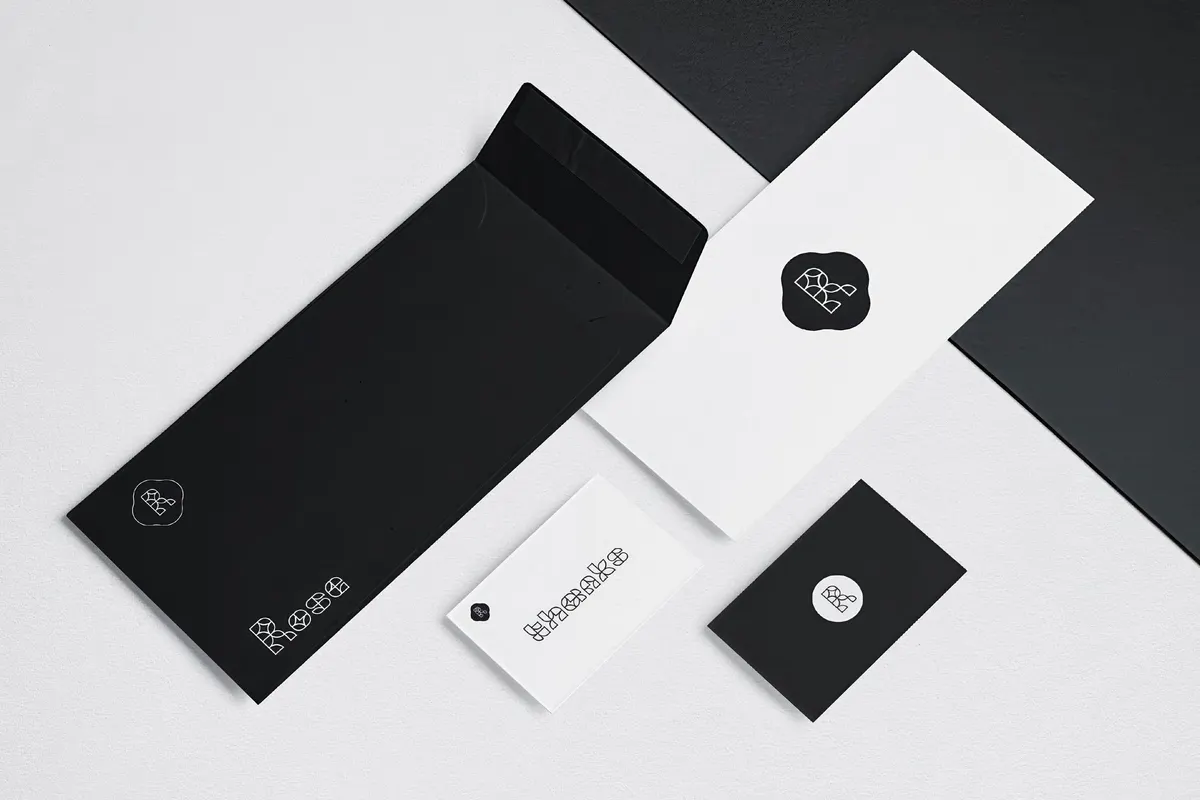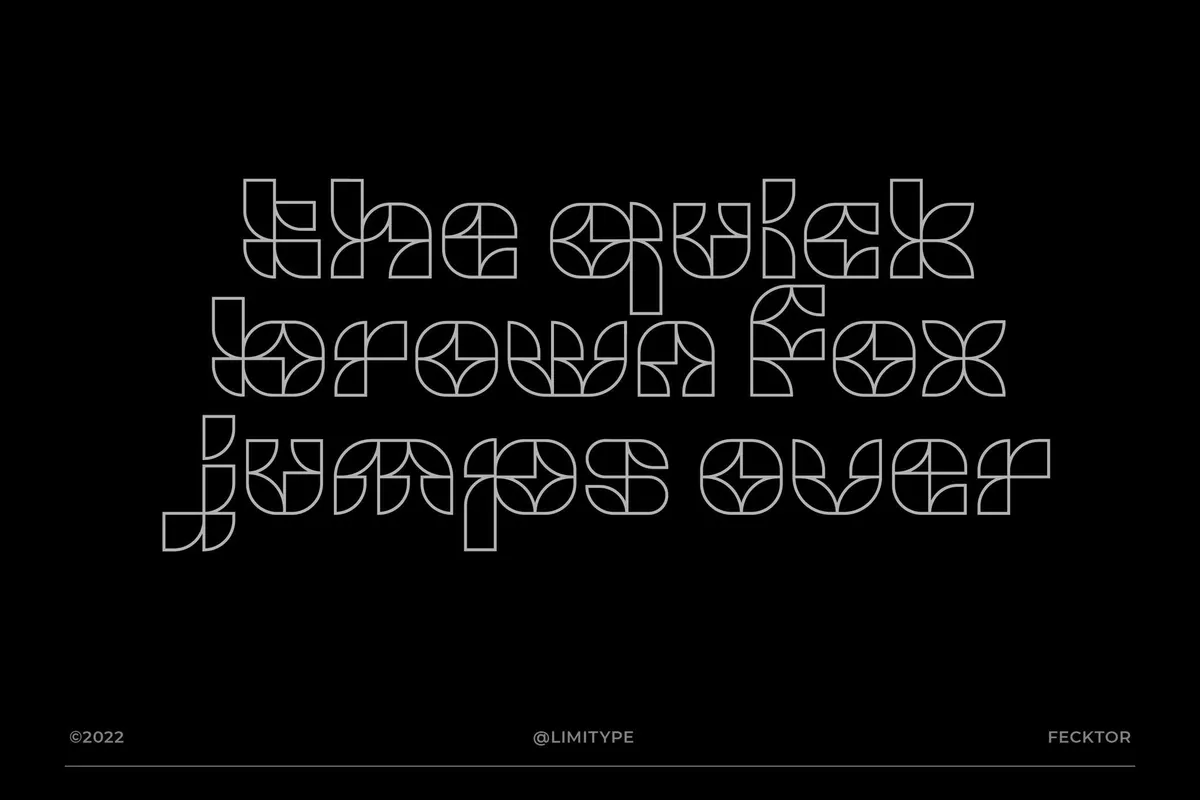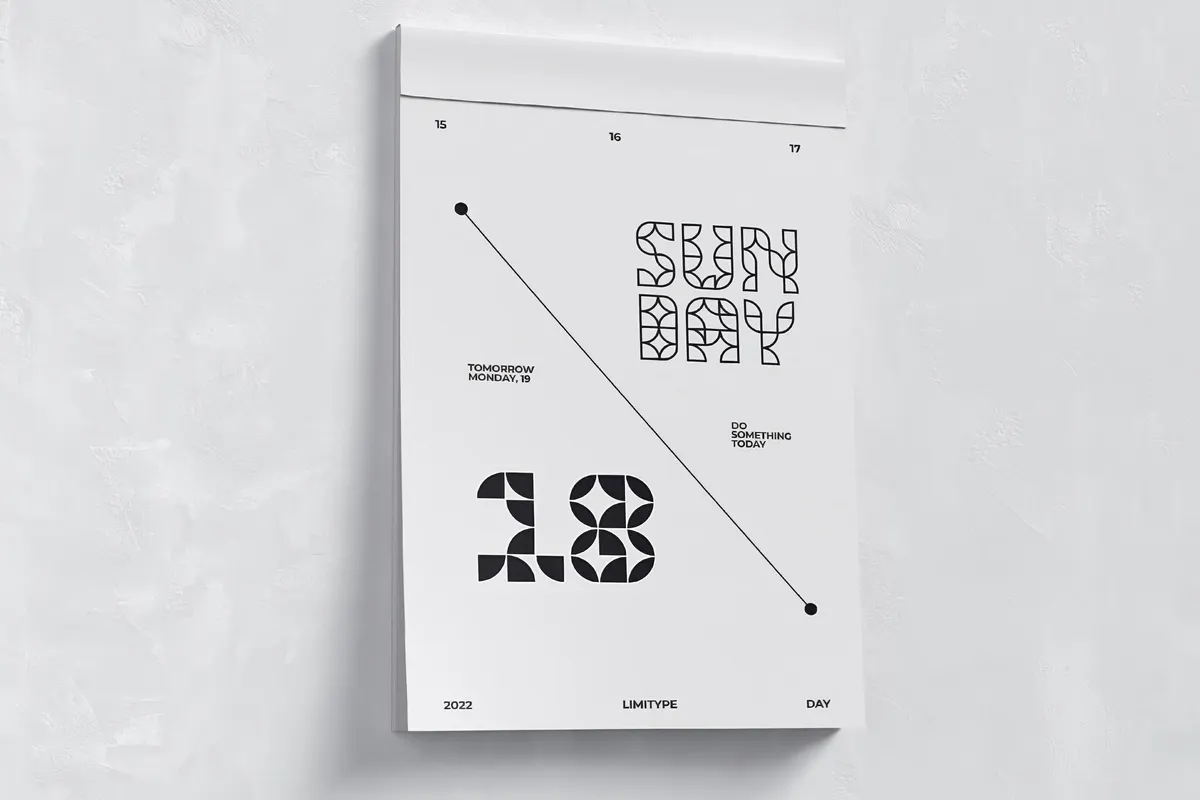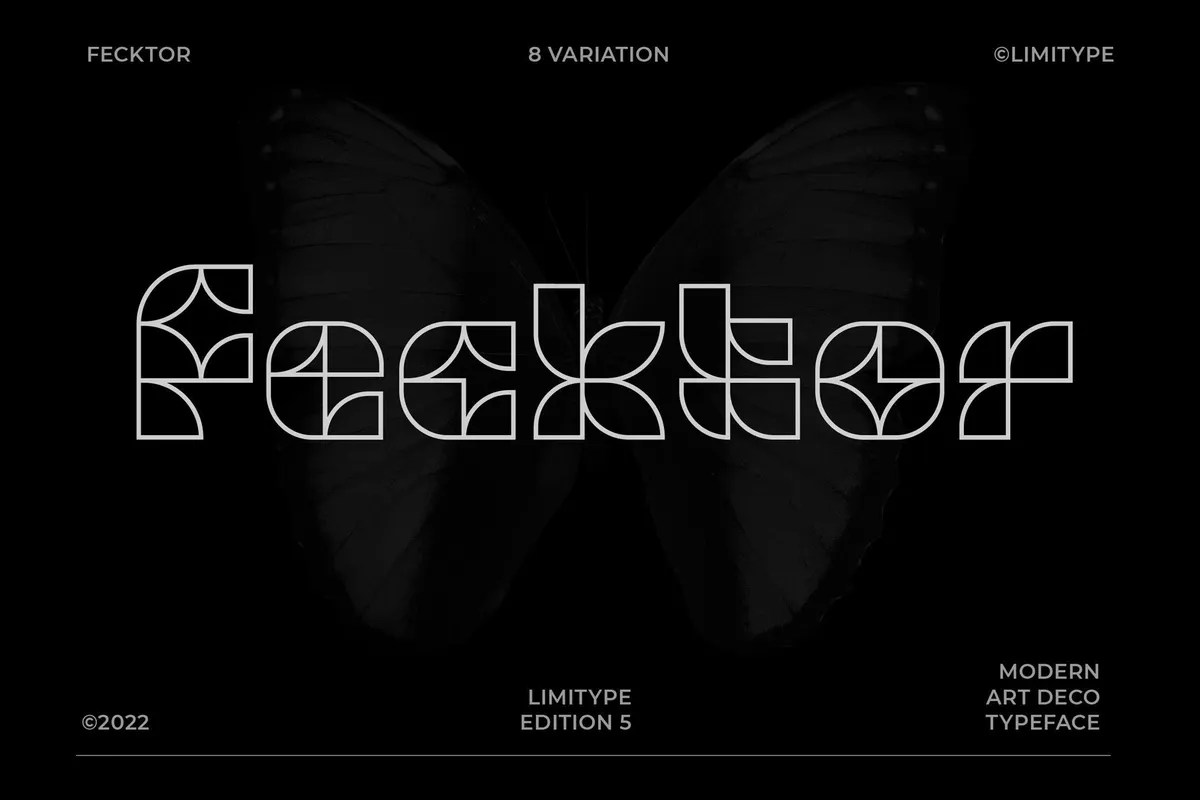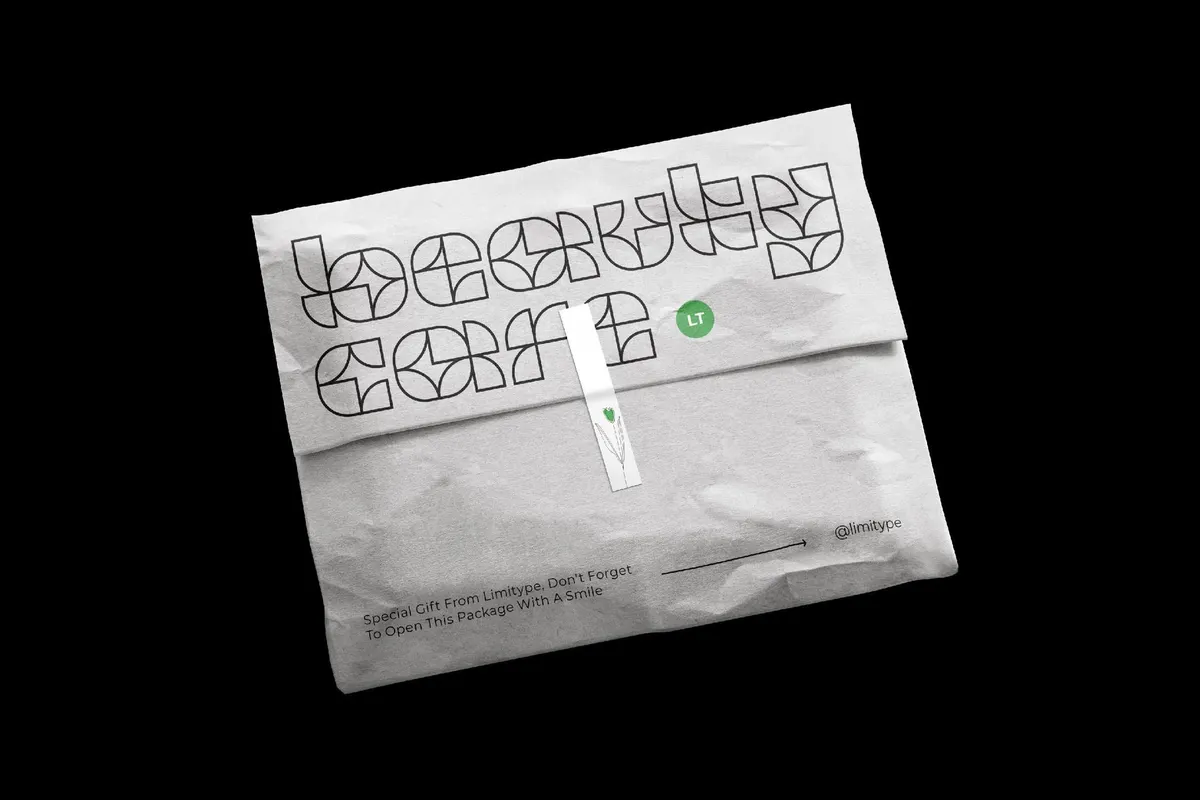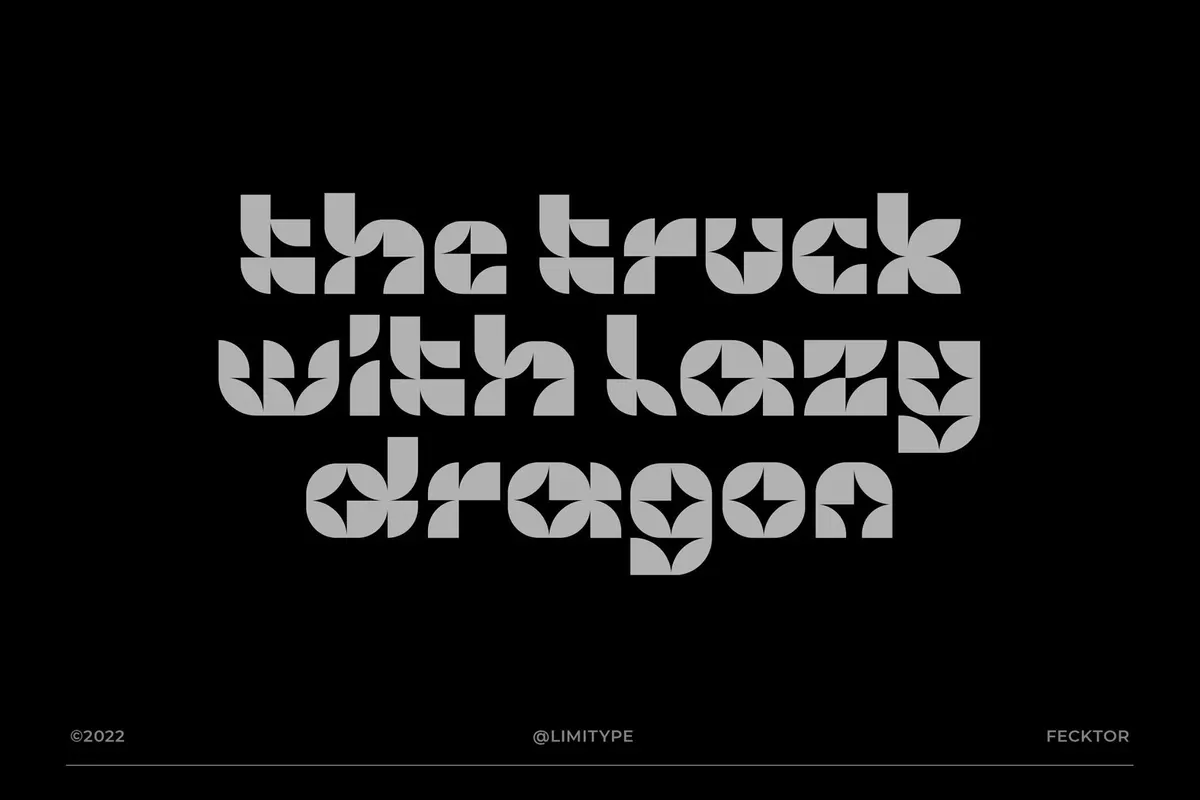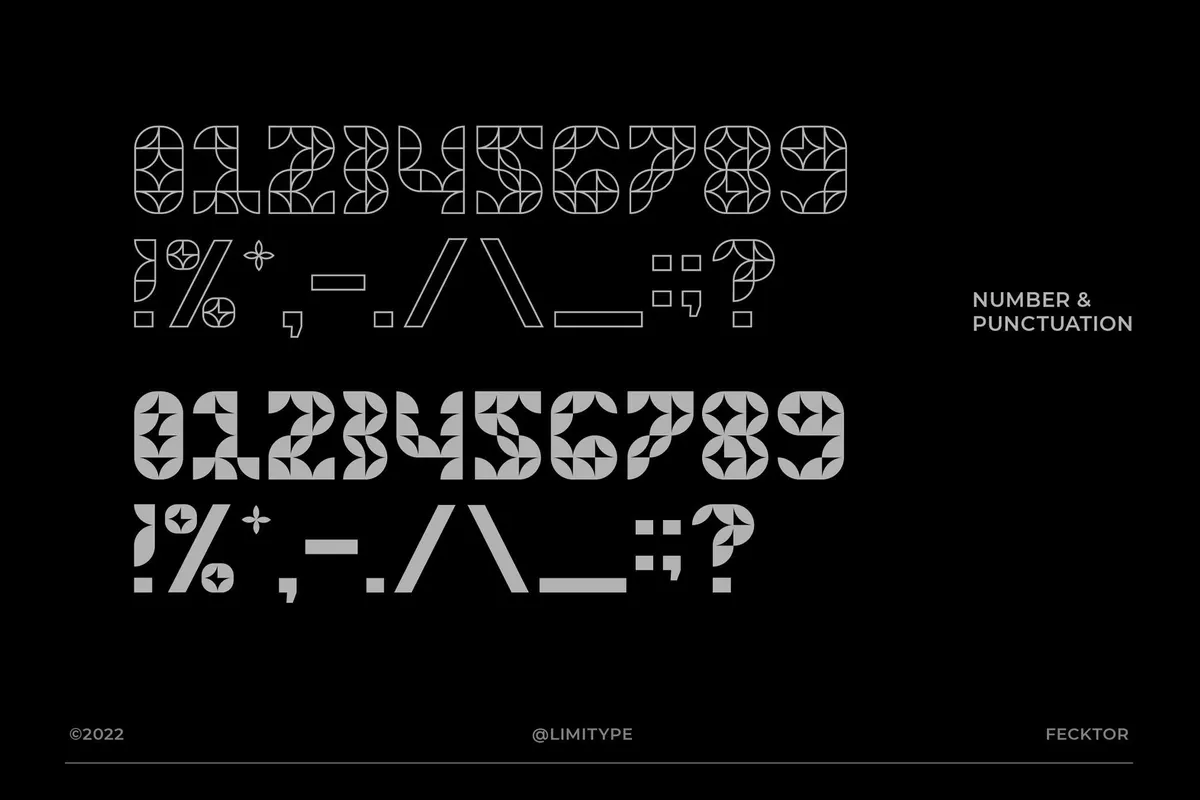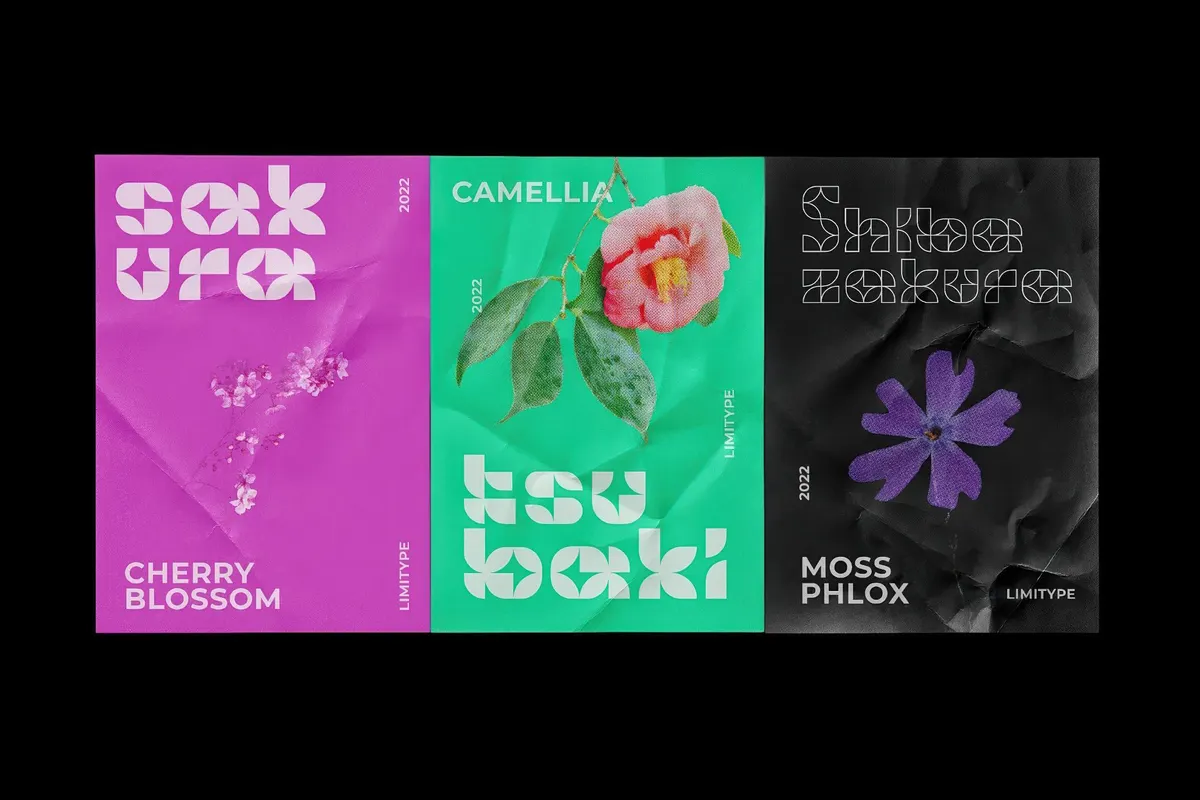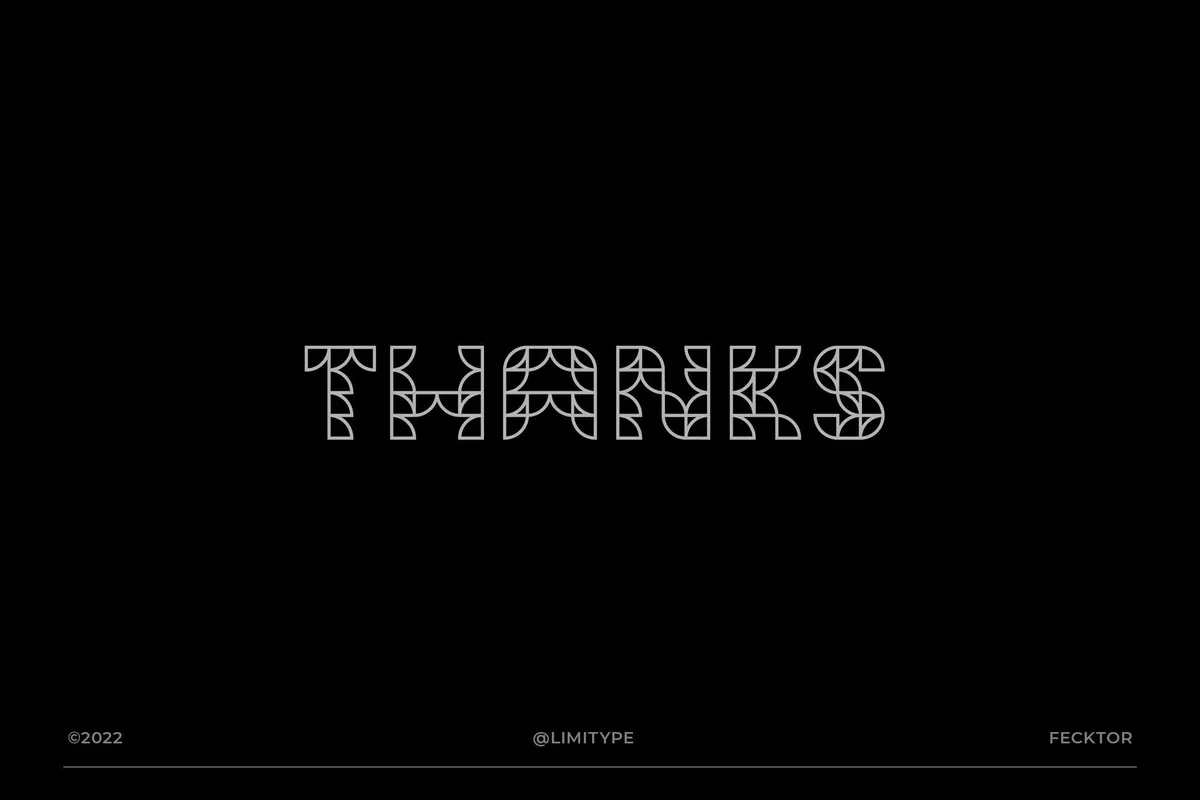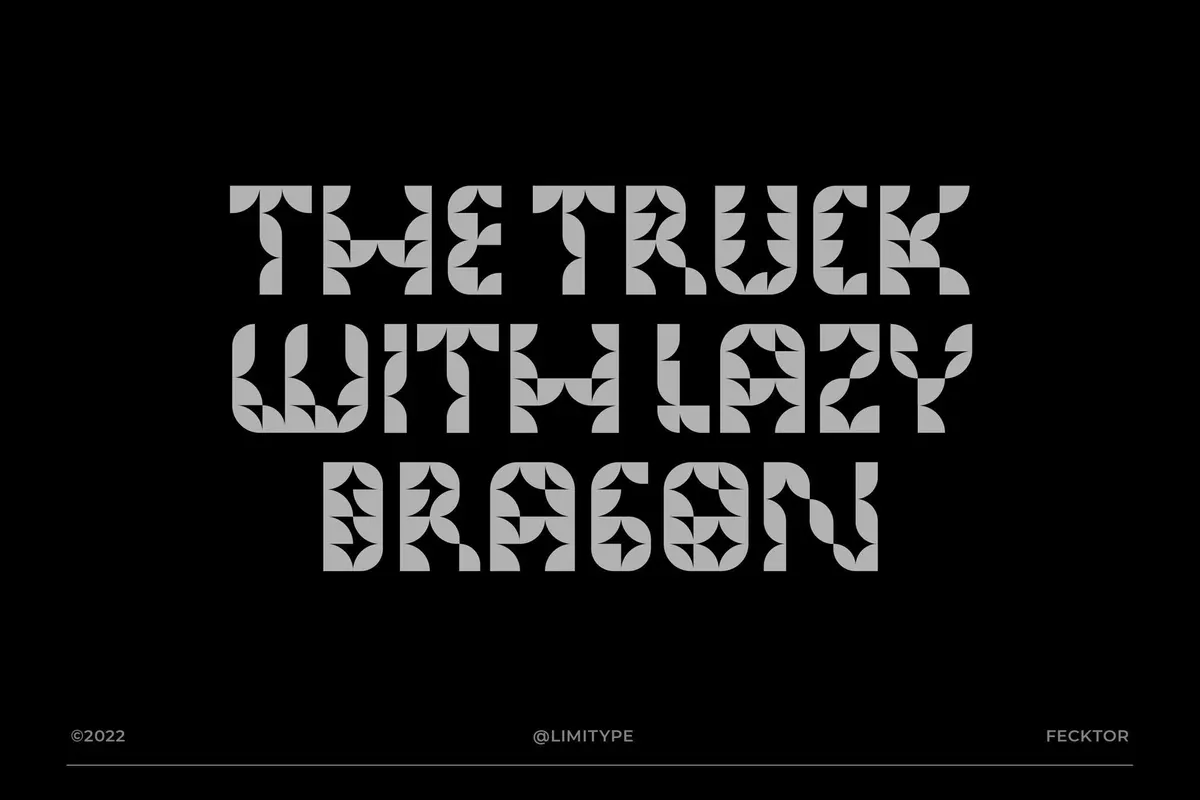
Fecktor — Modern Art Deco Font
Let go of everything you knew about Art Deco: arch-like shapes, forged geometry, and gold. No one cared before about remastering Art Deco typography, but this is the time. Meet Fecktor, where the retro goes hand in hand with futuristic eclectics.
Fecktor is a decorative typeface for display needs, headlines, logos, etc. It is designed with minimalism and inspired by quite oxymoronic things: butterfly wings, Art Deco visuals, and retro space typography full of adventurous aspirations. The font keeps 8 variations (light, regular, bold, solid, extended light, extended regular, extended bold, and extended solid), with a complete character set for each. There are uppercase and lowercase letters, numbers, and symbols.